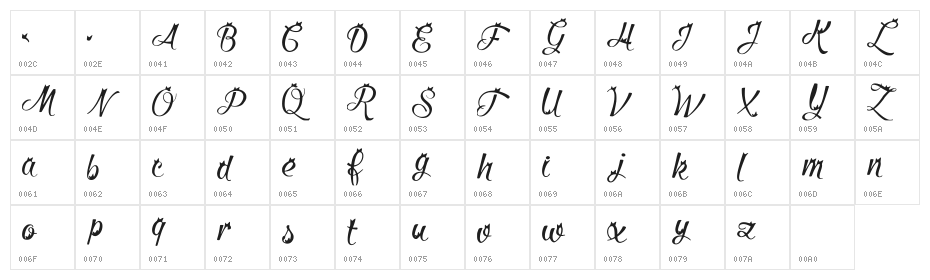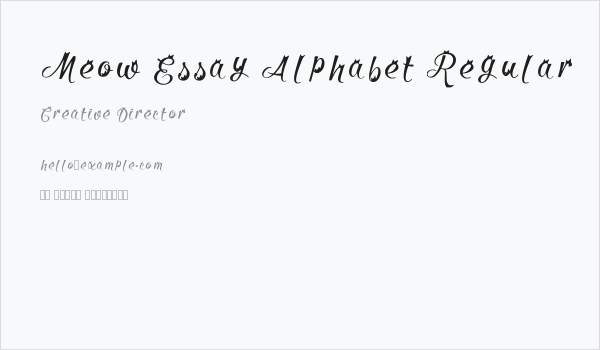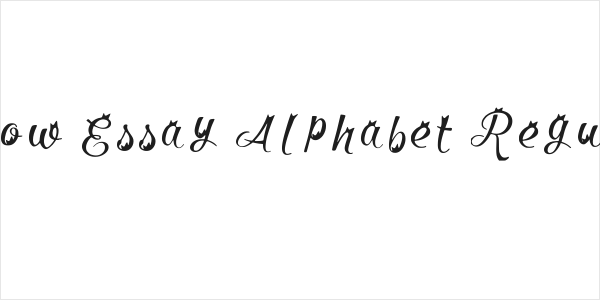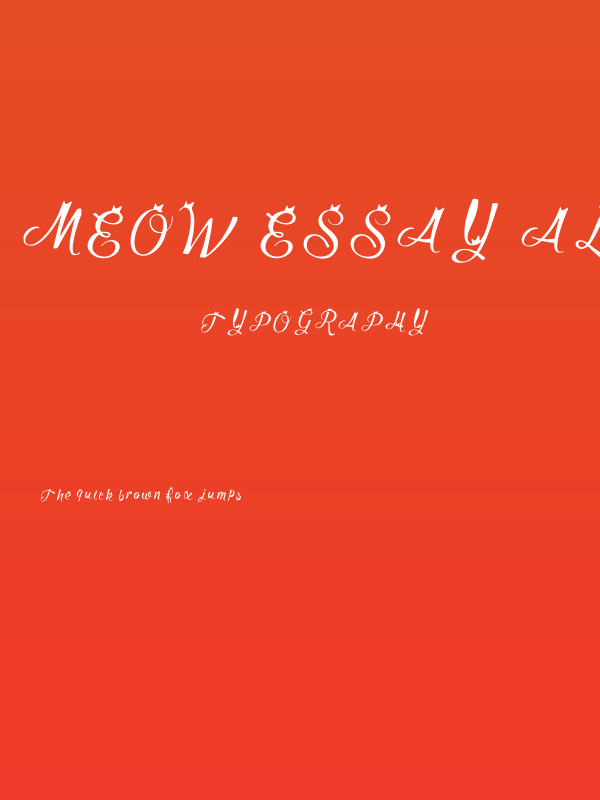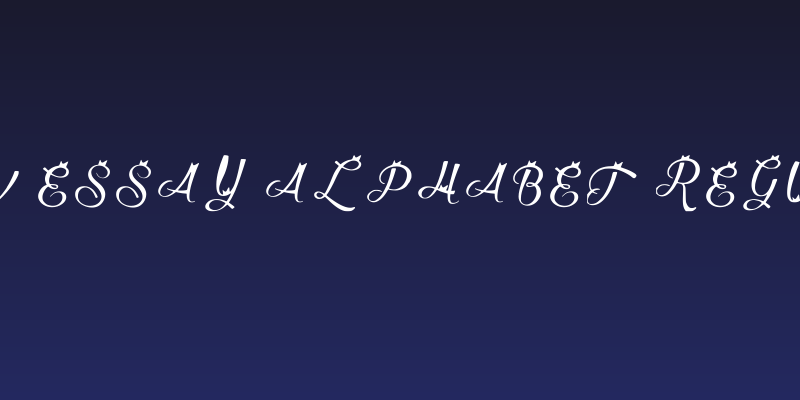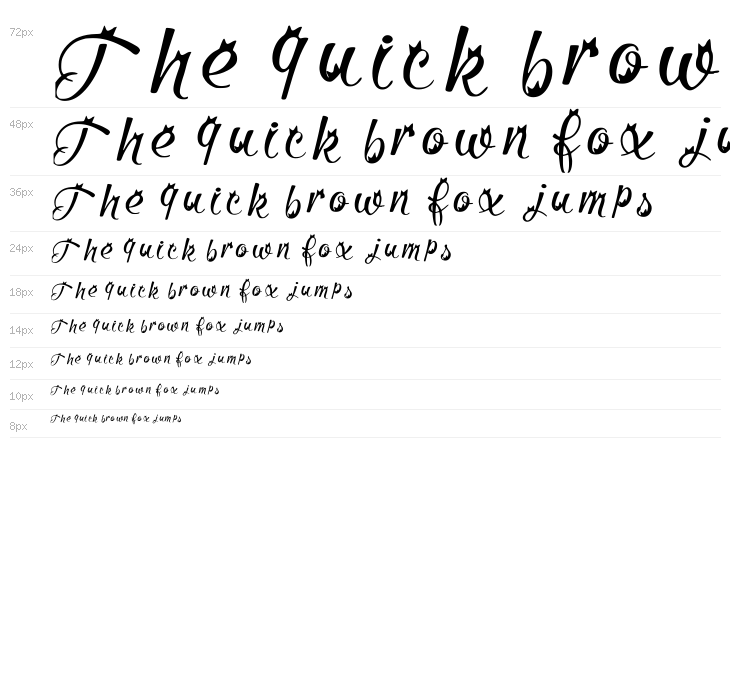
Meow Essay Alphabet Regular Font
Meow Essay Alphabet Regular Description
This font features a whimsical and playful design with a unique cat motif integrated into each letter. The characters are elegantly crafted with a script-like flow, giving them a sense of movement and charm. The uppercase letters are distinct with decorative elements, while the lowercase letters maintain a consistent style, enhancing readability. The font's playful nature is further emphasized by the inclusion of cat ears and tails, making it ideal for projects that require a touch of fun and creativity. The overall design balances between decorative and functional, ensuring that it stands out while remaining legible.
| Proposed Projects | Ideal for children's books, pet-related branding, playful invitations, and whimsical graphic design projects. |